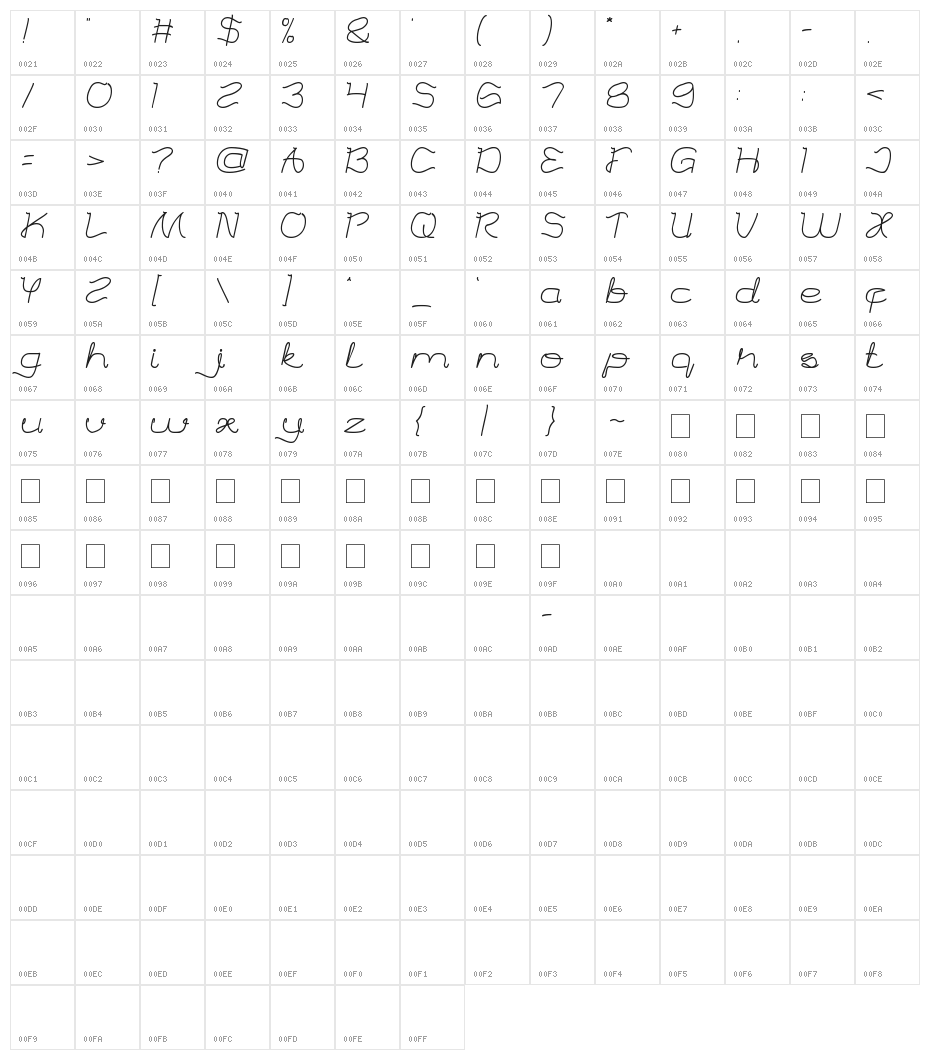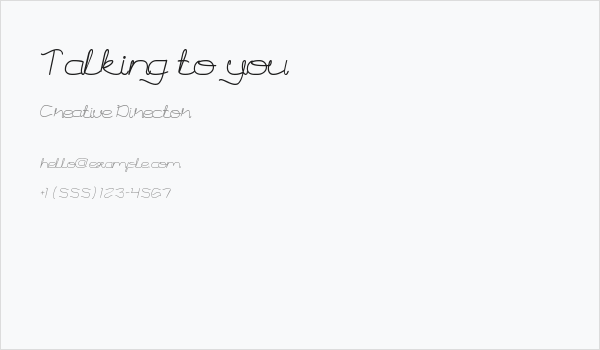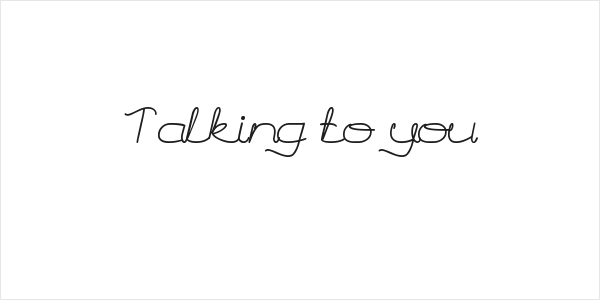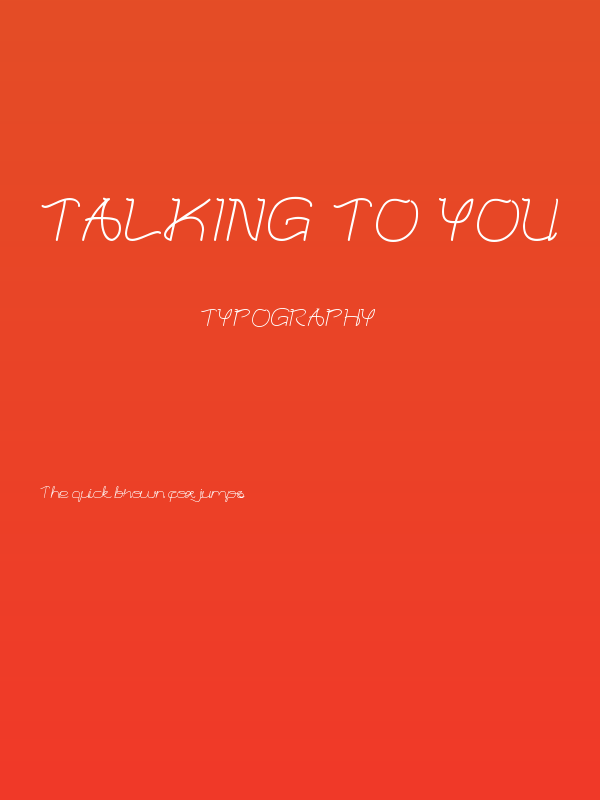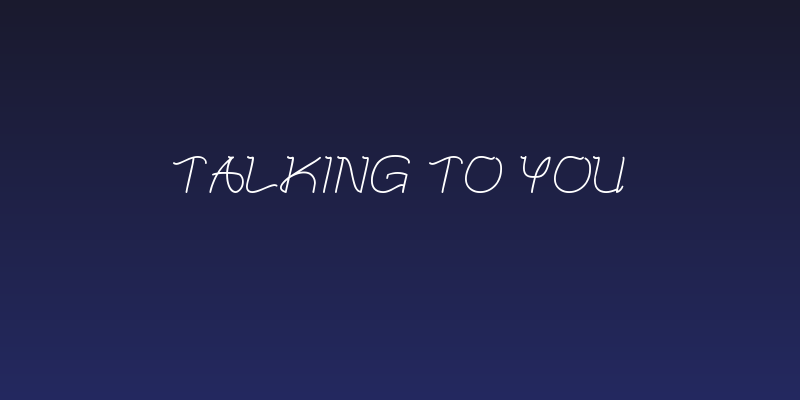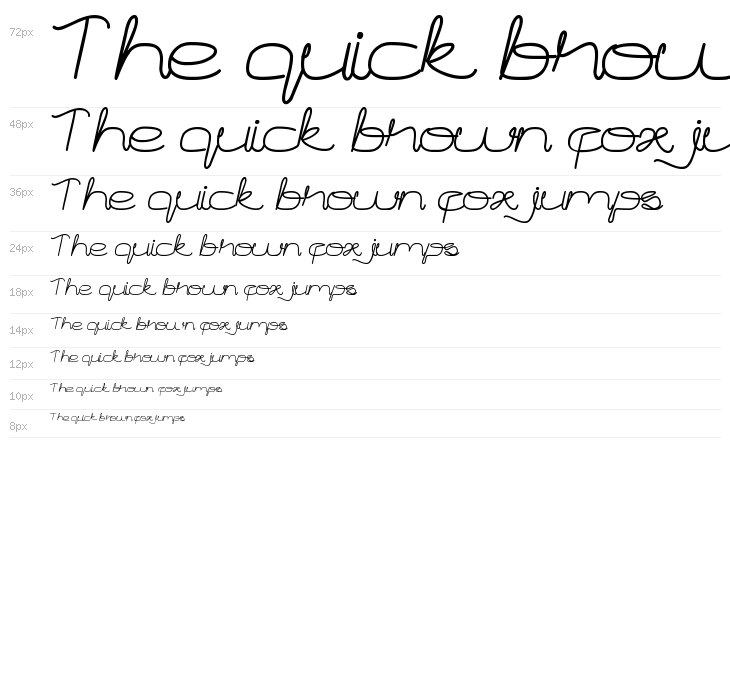
Talking to you Font
Talking to you Description
This font features a playful and casual script style, characterized by its flowing, connected letters that mimic natural handwriting. The uppercase letters are slightly more structured, while the lowercase letters exhibit a more relaxed, freeform appearance. The numerals and special characters maintain the same fluidity, ensuring consistency across all glyphs. The strokes are uniform in thickness, providing a balanced and harmonious look. This font exudes a friendly and approachable vibe, making it suitable for informal and creative applications.